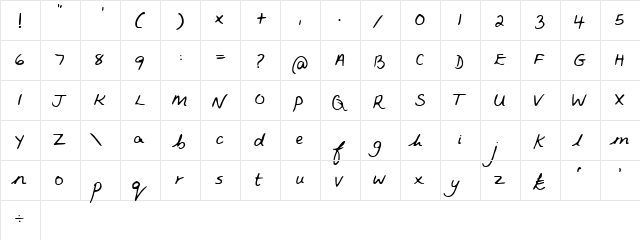
Fiona Fiona Hand Font Preview
Fiona Fiona Hand
Fiona Fiona Hand Font Details
Design Context for Fiona Typeface
Fiona brings a calligraphic fluidity to the page — its connecting strokes and expressive curves give it an unmistakably human quality.
Font Pairing: Combine Fiona with a simple geometric sans for maximum contrast — the tension between flowing curves and clean structure is a classic typographic pairing.
Pro Tip: Use Fiona for short runs of text — names, titles, or taglines. Extended body copy in script faces tires the eye quickly.